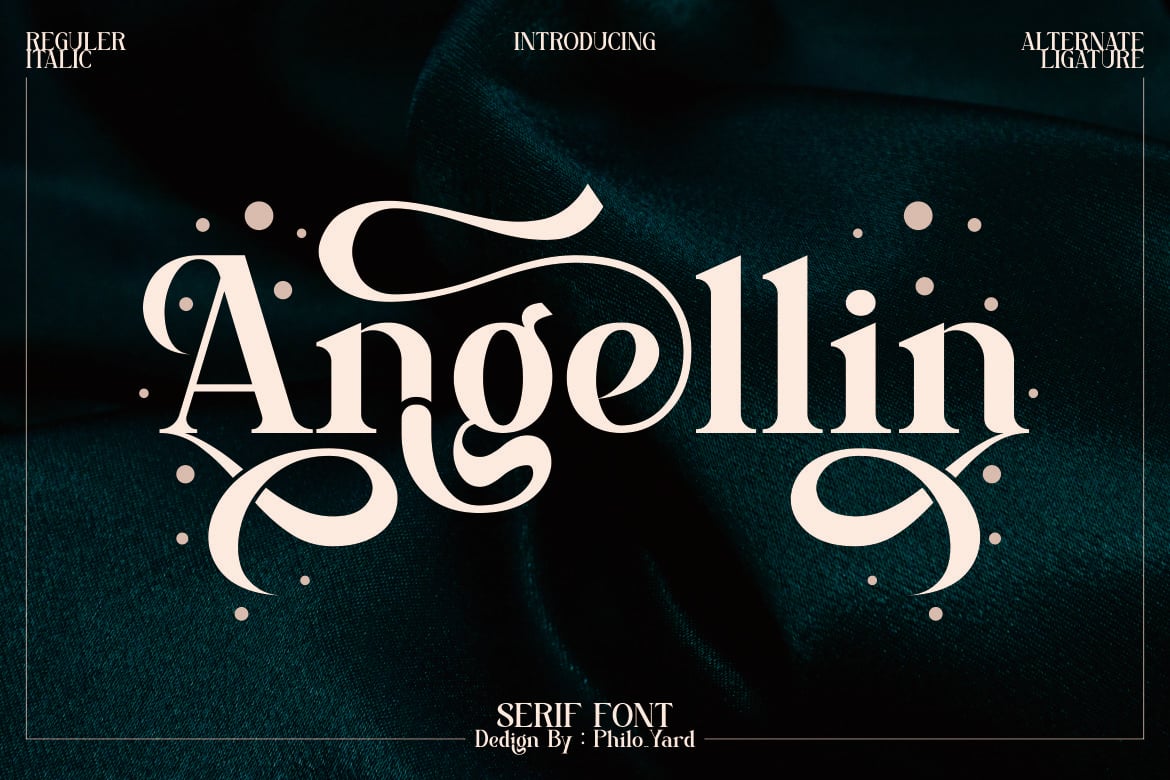
Angellin – Timeless Serif Font
Angellin – Timeless Serif Font is a distinctive and expressive font crafted to bring personality, structure, and creative energy into your projects. Angellin Modern Italic Serif Font is a modern serif typeface crafted for timeless elegance and visual storytelling. Its clean contrast and subtle ligatures make it ideal for branding, fashion editorials, and luxury packaging. Designed with cinematic grace, this font evokes sophistication and aesthetic harmony in every composition.